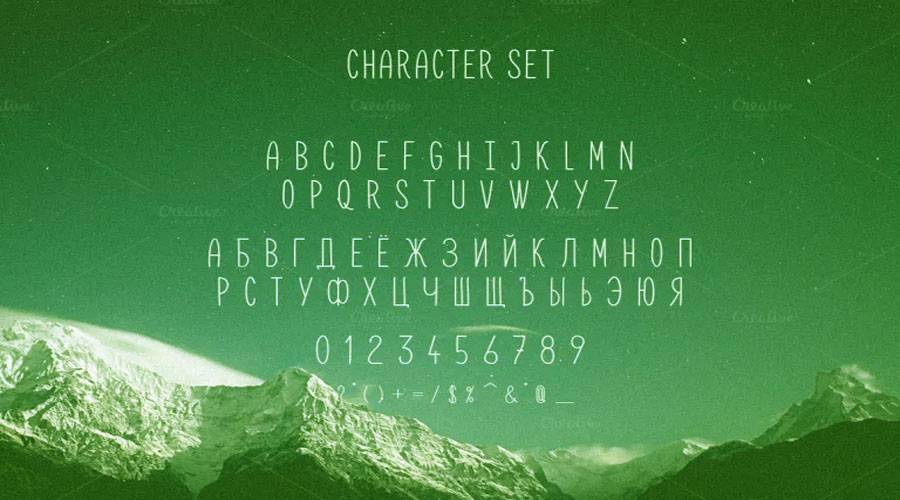
Karmina Handwritten Font Free
Karmina Handwritten Font Free is the most recent Script and handwritten text style. The font style is planned and distributed dmitry mashkin on March 3, 2016.
Karmina Handwritten Font Free is an entirely discernible and adjusted typeface reasonable for each sort of plan. The full form is containing two weights more (Regular and Shadow). The beautiful Script and handwritten Font is already available for sale on Creative Market. The Font is only available on ZIP file type. There are numerous comparative text styles as Karmina Handwritten Font Free. Such as Signature Photopedia Handwritten Font, Costtella Handwritten Script Font, Bethan White Monoline Script Font, Antonio Fischer Signature Monoline Script Font and many more.
Karmina Handwritten Font free is appropriate for written by hand cites, showcasing materials, headers, standards, stock, long-range informal communication locales, and blessing things. The font is the Best Font for the entirety of your unusual and creative plans.
| Designer | dmitry mashkin |